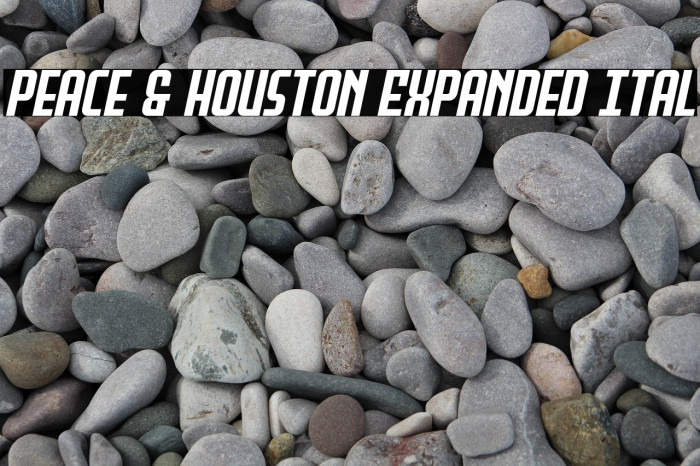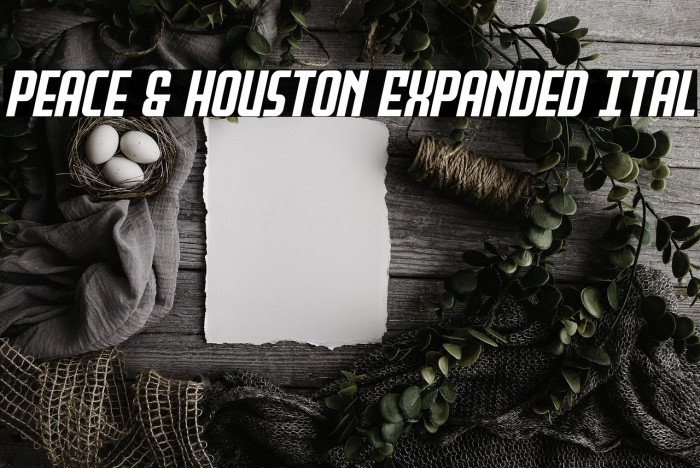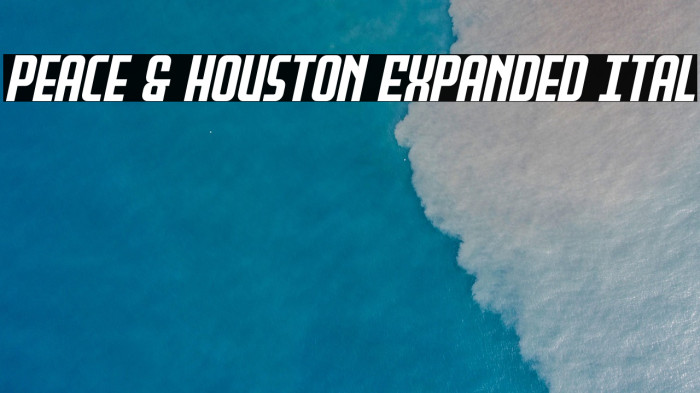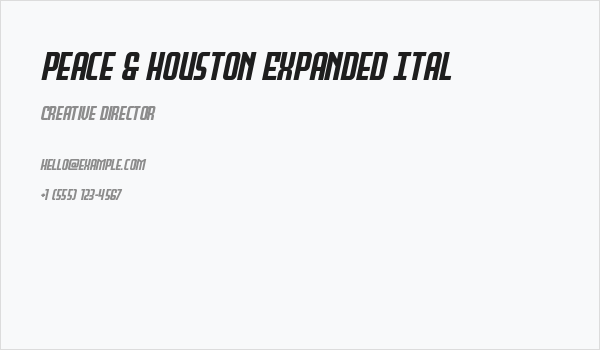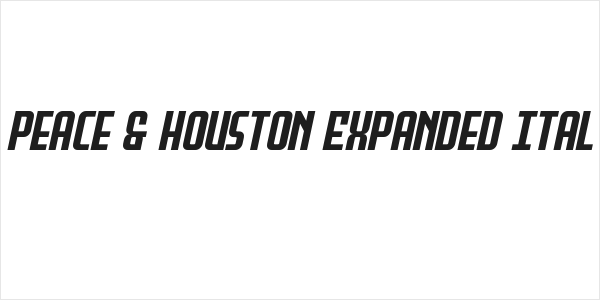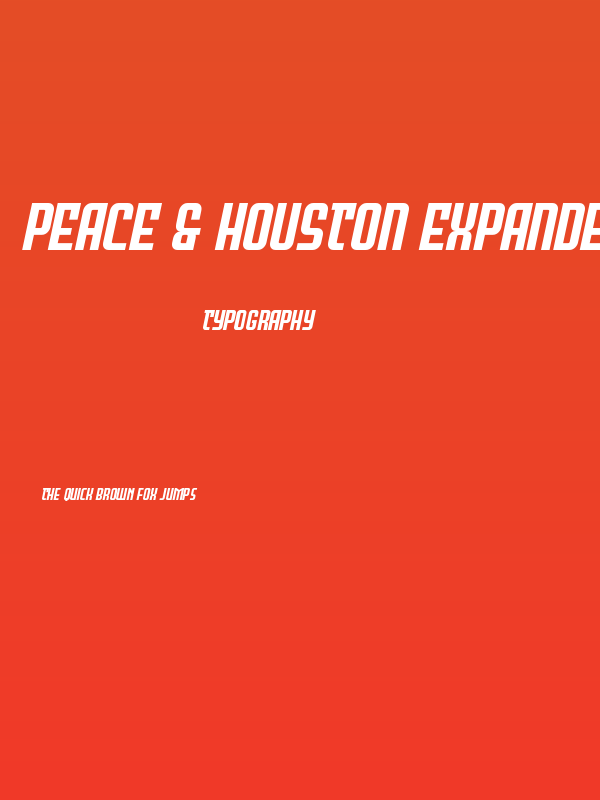
Peace & Houston Expanded Ital Font
Peace & Houston Expanded Ital Description
This font features a bold and dynamic design with a distinctly modern flair. The characters are expanded and italicized, giving them a sense of motion and energy. The strokes are thick and consistent, providing a strong visual impact. The uppercase and lowercase letters maintain a uniform width, contributing to a cohesive appearance. The numbers and special characters are designed to match the boldness and style of the alphabet, ensuring versatility across different uses. The font's expanded width and italic slant make it particularly eye-catching, suitable for projects that require a strong and assertive presence.